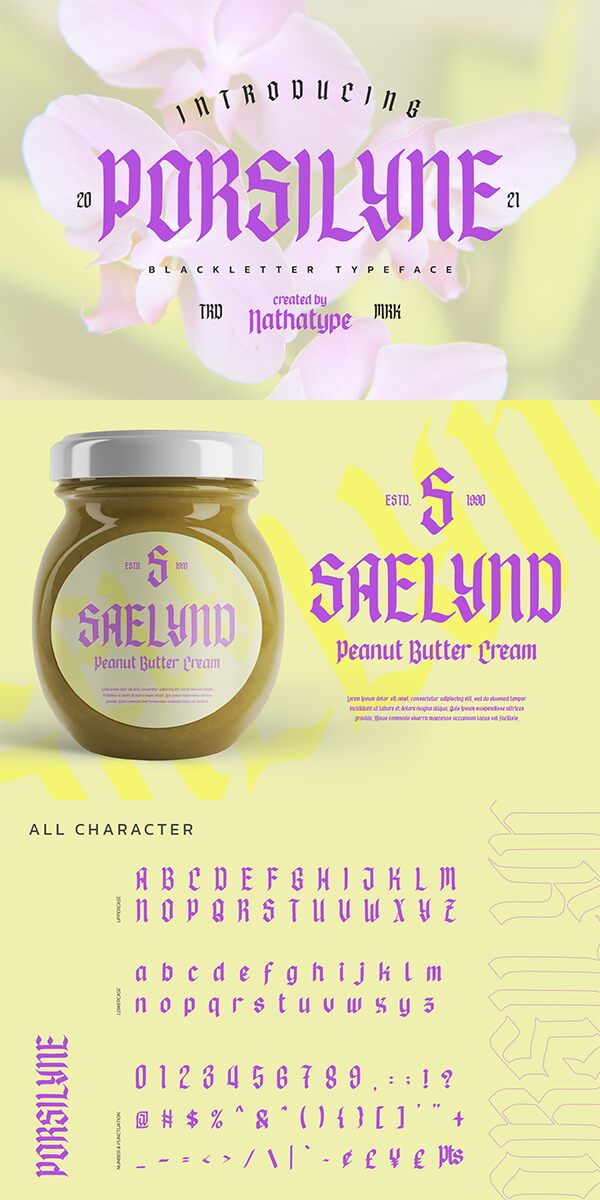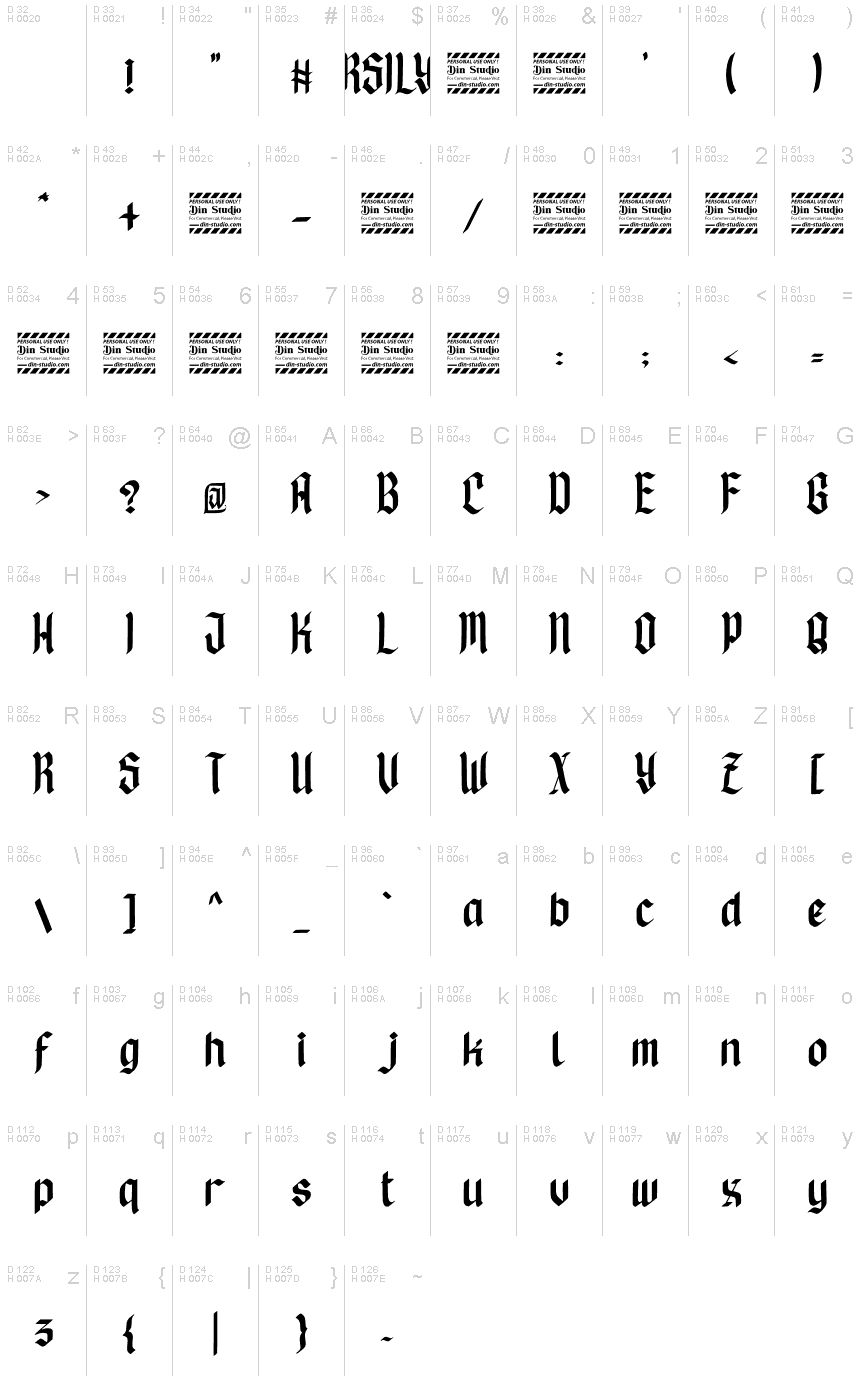
Meet Porsilyne, the gothic font designed by Din Studio. With its modern and condensed style, Porsilyne is perfect for adding a touch of edginess to your projects.
Whether you're designing a captivating logo, an eye-catching book cover, a striking poster, a trendy t-shirt, or building a powerful brand identity, this versatile typeface has got you covered. Its artistic flair will grab attention and make your content stand out from the crowd.
Let Porsilyne elevate your promotions and bring a fresh and stylish perspective to whatever you create. Embrace the modernity with this all-in-one package for all your advertisement needs.